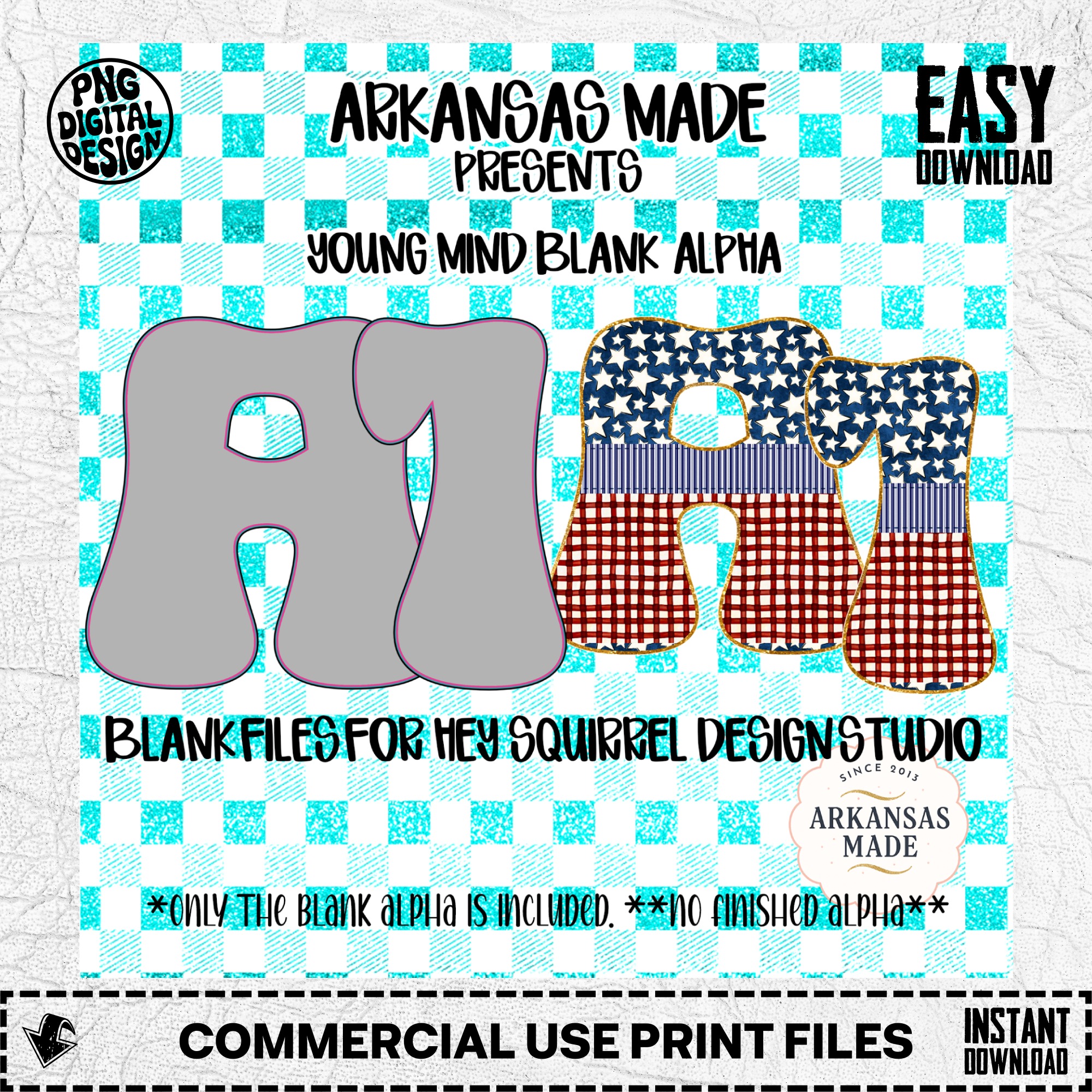
Young Mind Blank Alpha PNGs for Hey Squirrel Design Studio | Groovy Retro Bubble Font Digital Download, Customizable Alphabet Sublimation
Unlock endless creativity with our Young Mind Blank Alpha PNGs for Hey Squirrel Design Studio! Perfect for custom sublimation and digital design projects. Embrace the groovy retro vibe of these versatile bubble letters, or customize them with a patriotic flair featuring stars, stripes, and faux gold glitter effect. Ideal for digital crafters, sublimation artists, and small business owners creating unique apparel, tumblers, and more. A fantastic base for Independence Day designs or personalized gifts for any occasion.